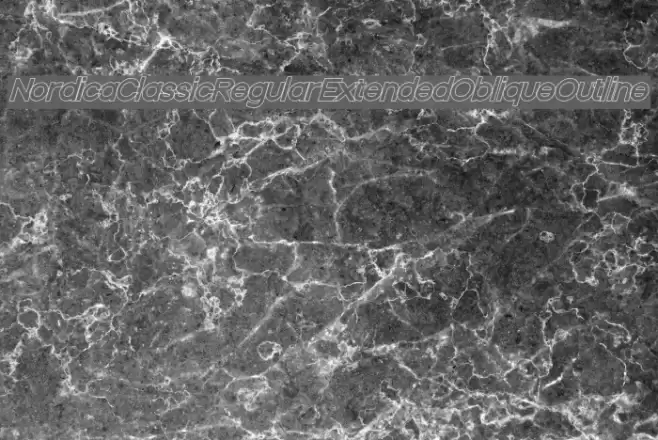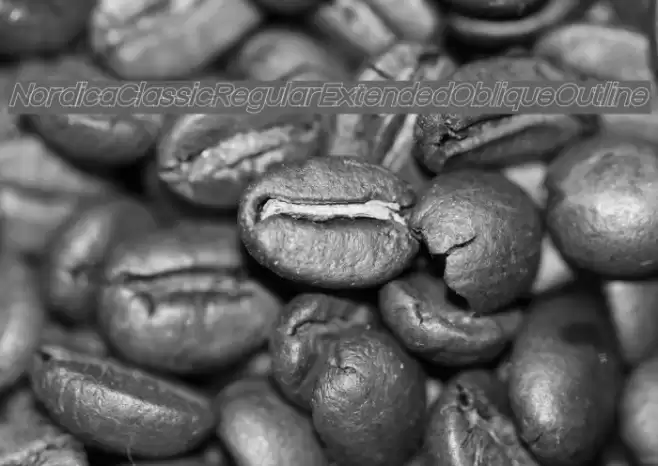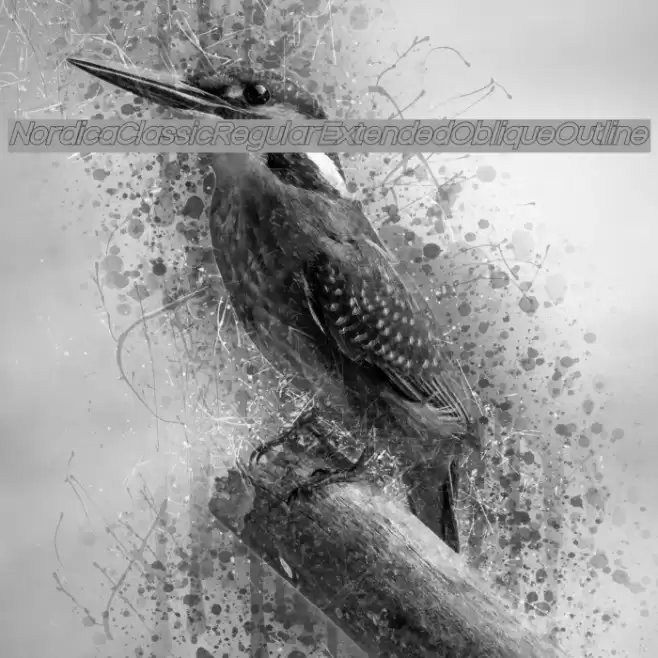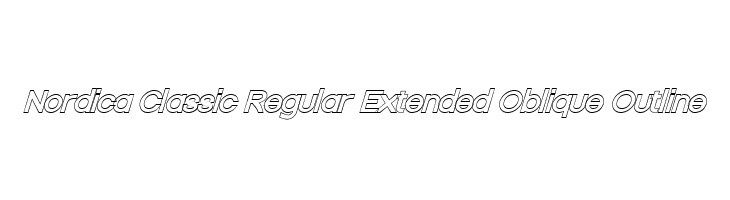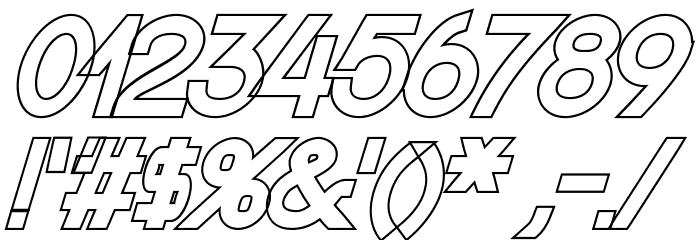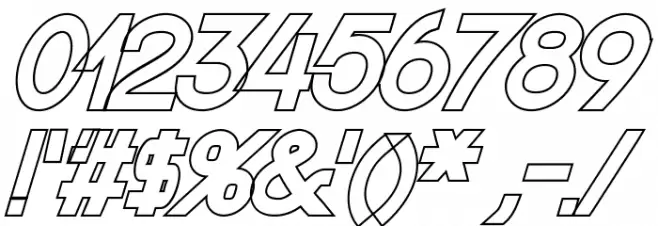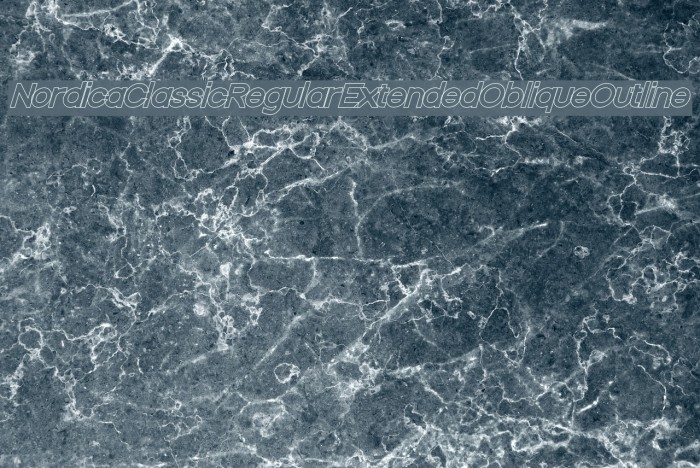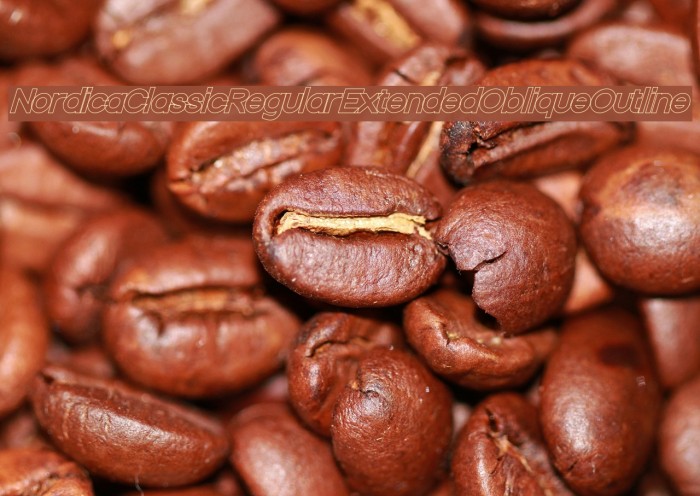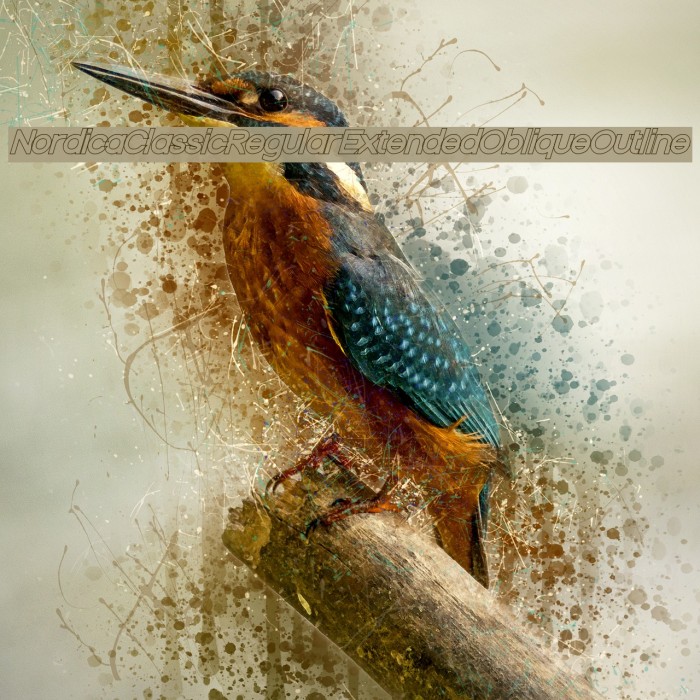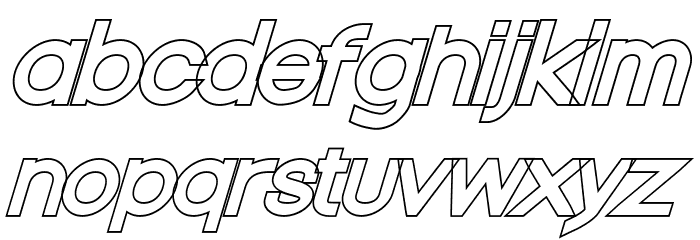
Nordica Classic Regular Extended Oblique Outline
This font features a modern and sleek design with an oblique orientation, giving it a dynamic and forward-leaning appearance. The outline style adds a unique touch, making each character appear as if it is sketched with precision. The extended width provides a spacious feel, enhancing readability while maintaining a stylish edge. The uppercase and lowercase letters are well-balanced, and the numerals are clear and distinct. Special characters are included, maintaining the font's cohesive design. This font is ideal for projects that require a contemporary and eye-catching look.
A modern, oblique, outline font with extended width and sleek design.
- Width: Expanded